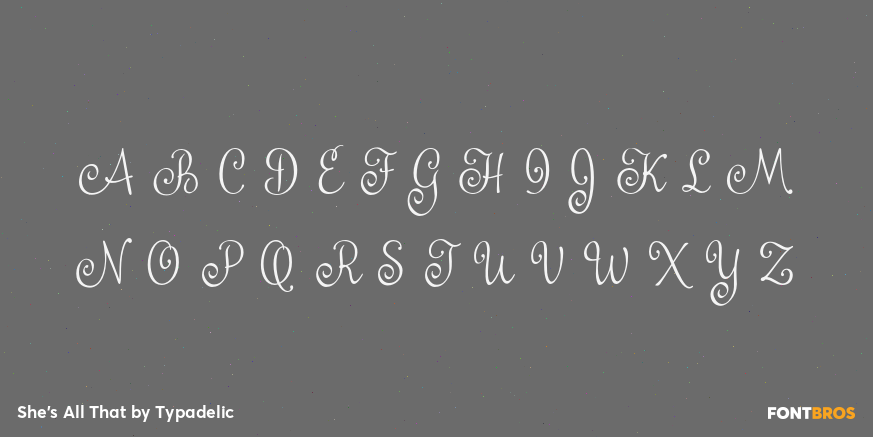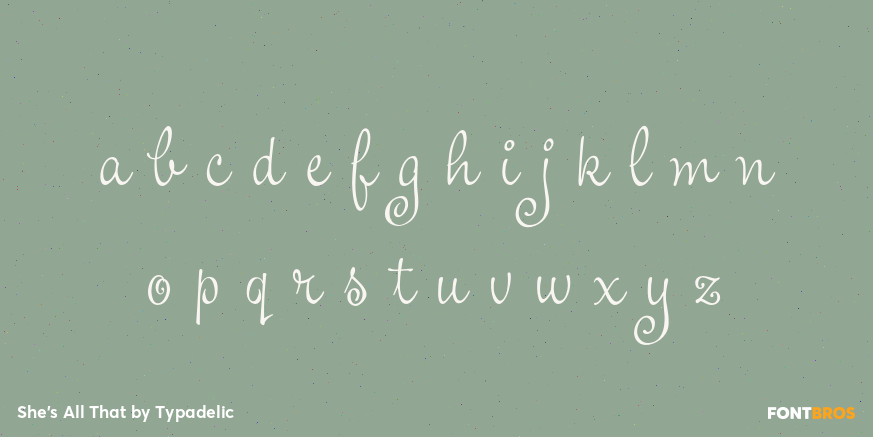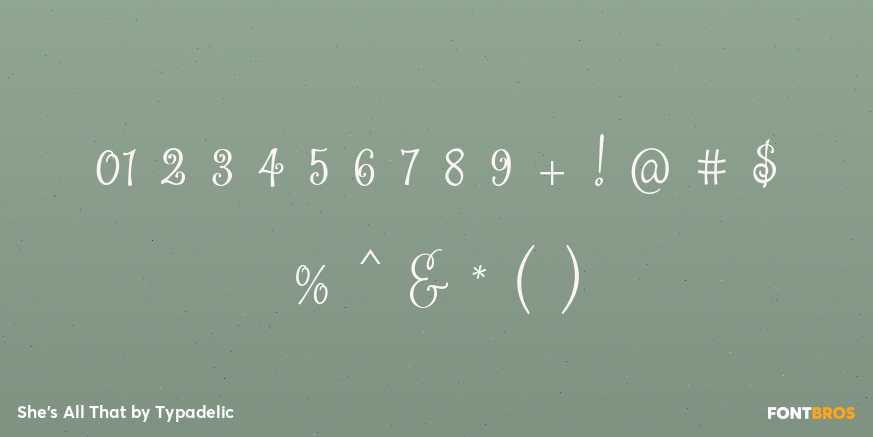
She's All That
Font Family by Typadelic
She’s All That is a single-style script font family with a playful, hand-drawn feel and a personality that swings between casual charm and dressed-up flair. Its lively strokes give it an expressive, slightly wacky look, making it feel personal, fun, and full of motion.
Tagged as casual script, formal script, fun, and handwritten, this design can move easily from upbeat branding and social graphics to invitations, posters, packaging, and other display work that needs a more animated voice. It’s a strong pick when you want lettering that feels friendly and attention-grabbing without losing its script character.